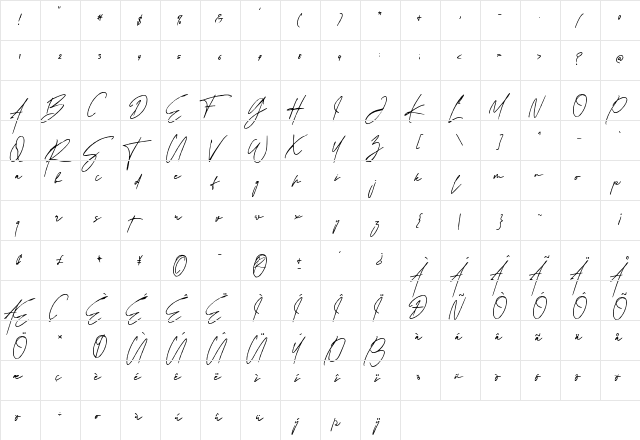
Hillal Regular
Design Context for Hillal Typeface
Hillal is a composed and adaptable typeface that performs quietly and consistently across a wide range of design contexts.
Pro Tip: Use Hillal in both headline and body roles to test its range before committing to a single application.